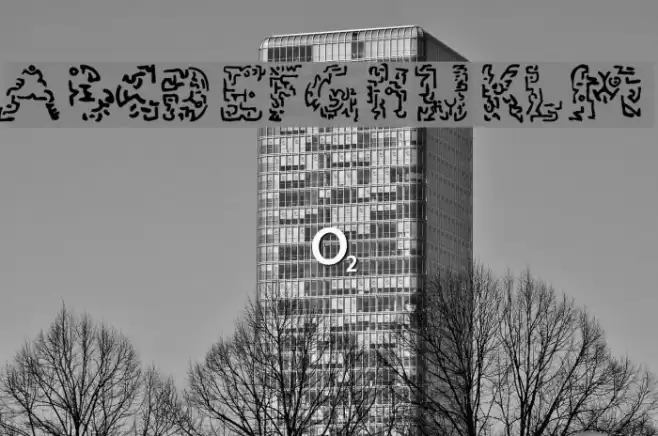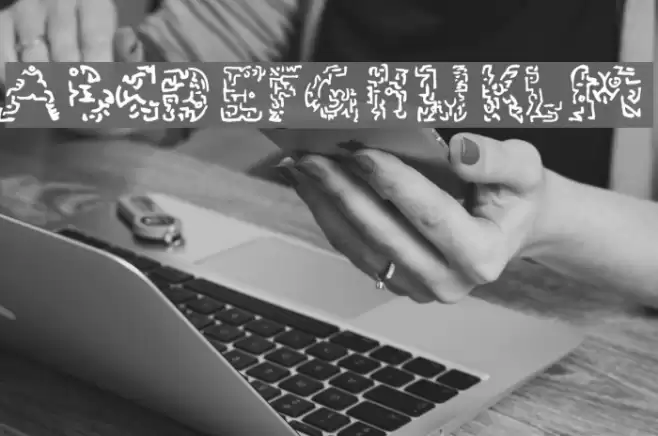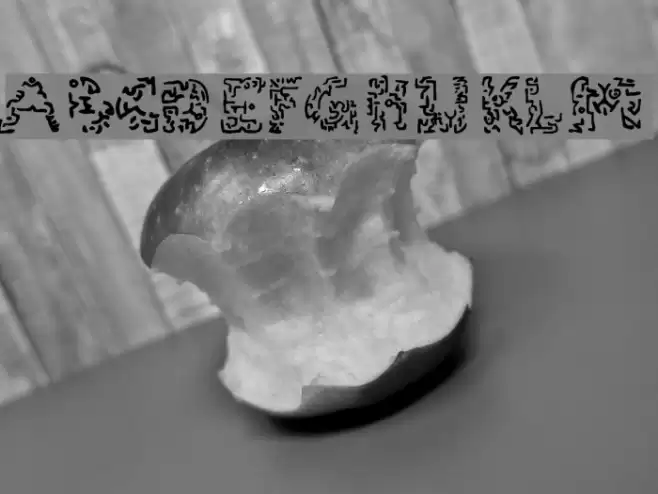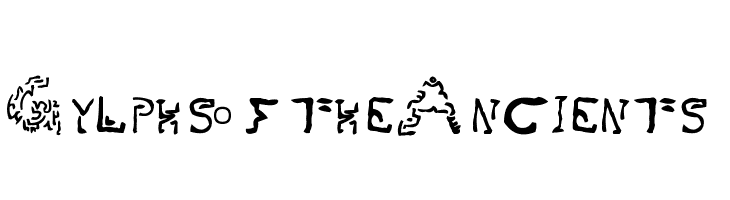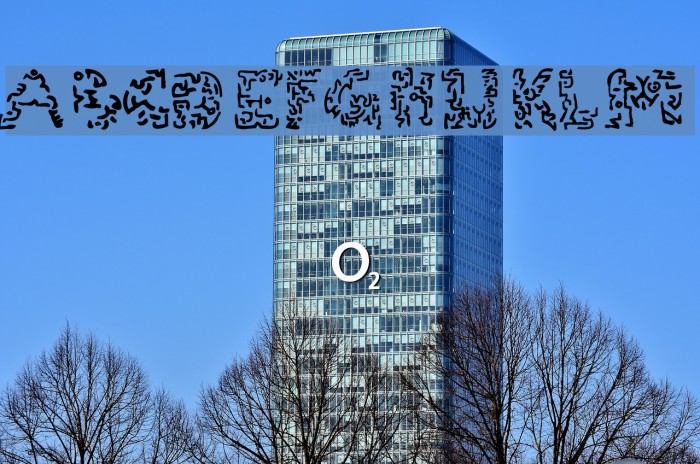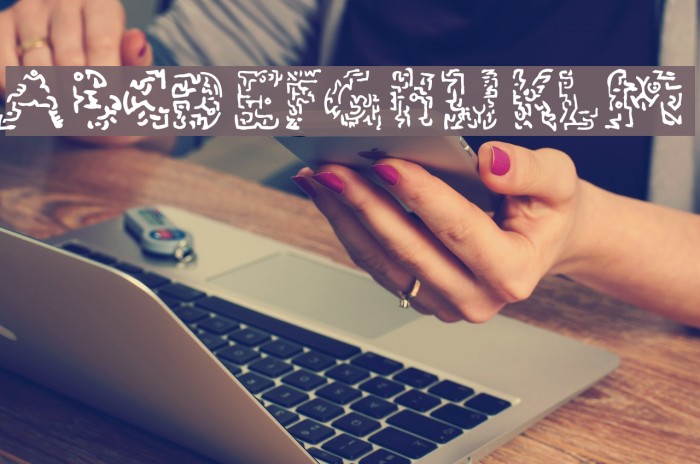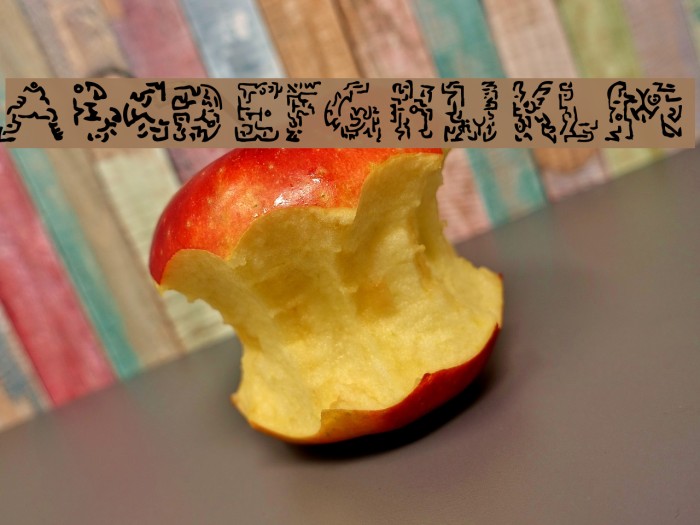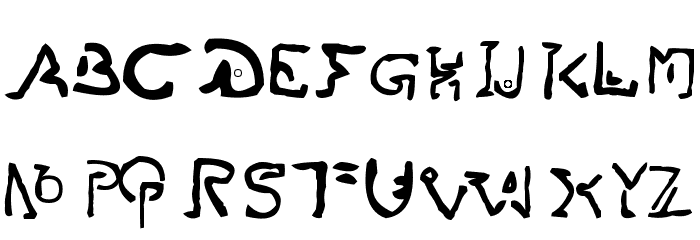
Gylphs of the Ancients Font
Gylphs of the Ancients Description
This font features an intricate and decorative style, reminiscent of ancient scripts and glyphs. The uppercase letters are adorned with elaborate patterns, giving them a mystical and historical appearance. The lowercase letters maintain a similar aesthetic, with unique shapes that suggest an ancient or tribal influence. The numbers and special characters are equally ornate, contributing to the overall theme of antiquity and mystery. This font's distinctiveness makes it suitable for projects that require a touch of the exotic or the arcane.
An intricate, decorative font inspired by ancient scripts and glyphs from Quirky fonts.
- Proposed Projects: Ideal for fantasy book covers, historical themed posters, or mystical branding projects.
- Use Case: Logos, Posters, Book Covers